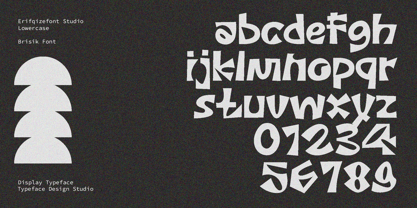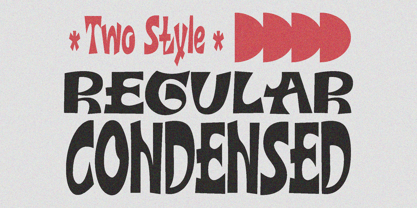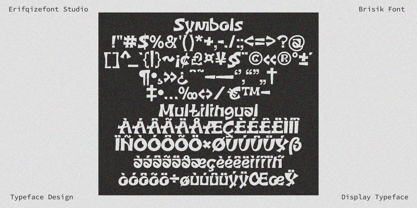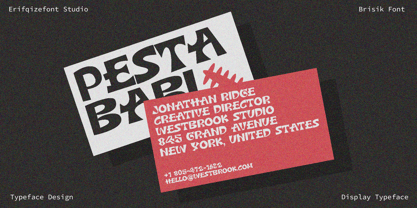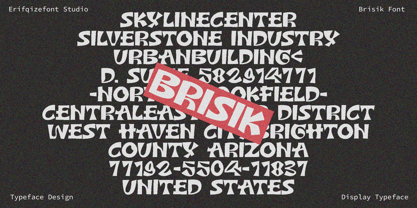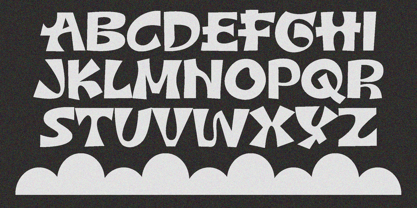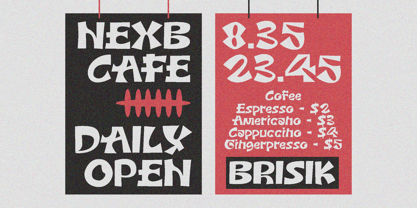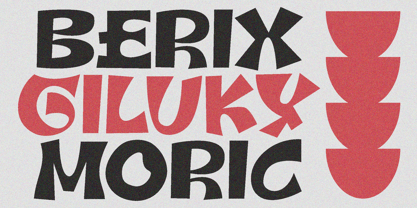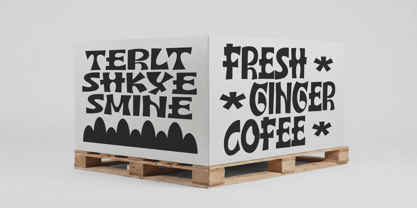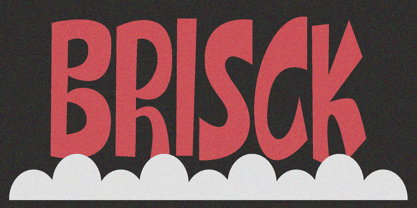
Brisck
The Brisck Font Family was designed by Eka Rifqi Setiawan and published by Erifqizefont. Brisck contains 2 styles and family package options. More about this family
Brisck is a bold experimental display typeface that combines playful distortion with expressive handcrafted character shapes. Featuring tall proportions, organic curves, and unconventional letterforms, Brisck creates a strong visual presence that feels both artistic and rebellious.
Designed to break traditional typographic rules, Brisck is perfect for posters, album covers, branding, packaging, editorial headlines, creative campaigns, and contemporary visual identities. Its dynamic silhouette and quirky details give every word a unique rhythm, making designs feel energetic, memorable, and full of personality.
Whether you're creating retro-inspired graphics, indie branding, artistic publications, or bold promotional materials, Brisck delivers a distinctive character that stands out from ordinary display fonts.